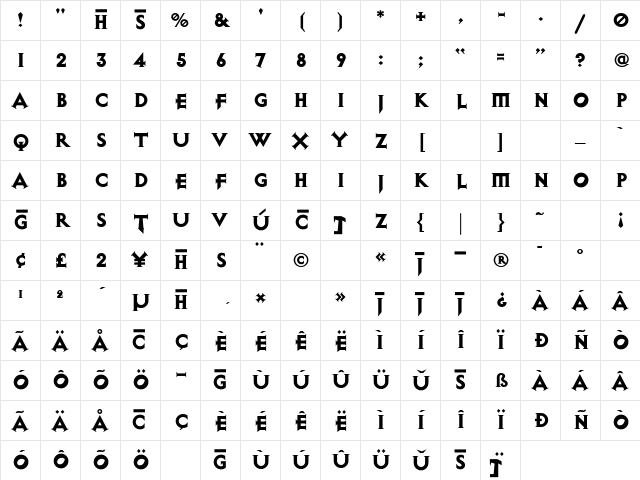
Xdajfl Heavy
Design Context for Xdajfl
Xdajfl is a composed and adaptable typeface that performs quietly and consistently across a wide range of design contexts.